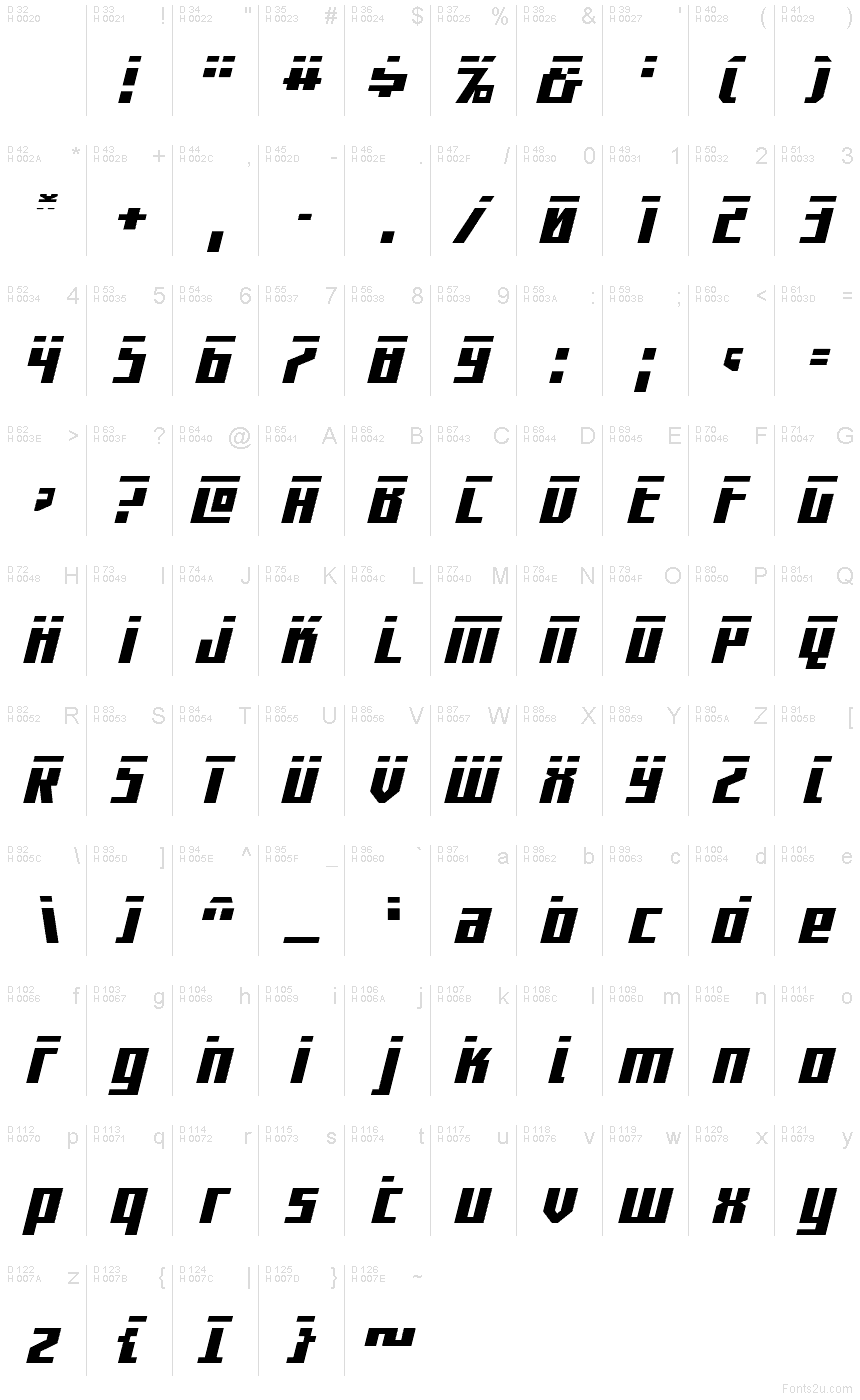
Capitol City Laser
Capitol City Laser font by Iconian Fonts is a condensed techno display typeface, featuring an italicized geometric design. It presents a modular and industrial vibe inspired by mid-20th century futuristic design. Curved and straight shapes are nicely mixed with some decorative elements added here and there.